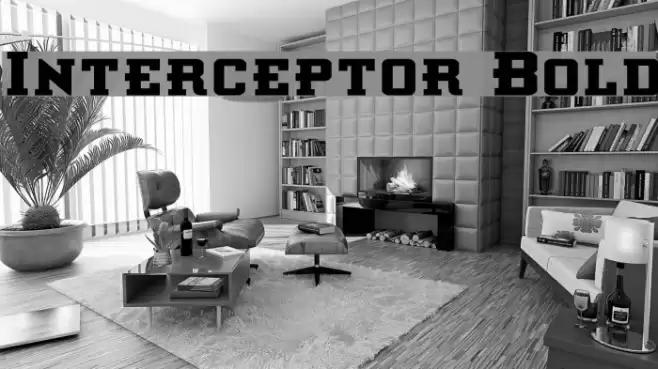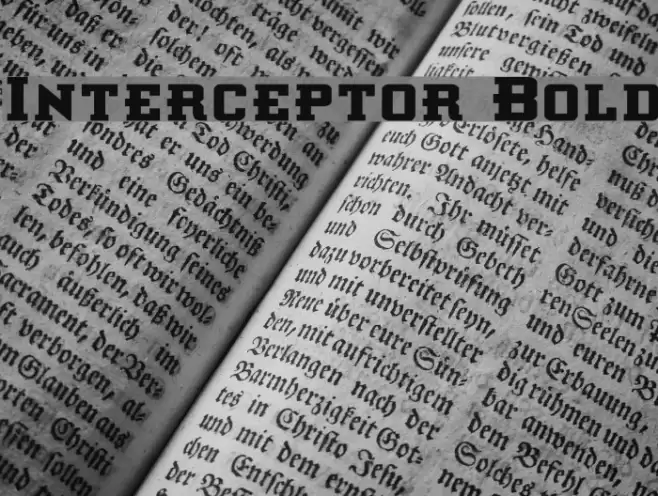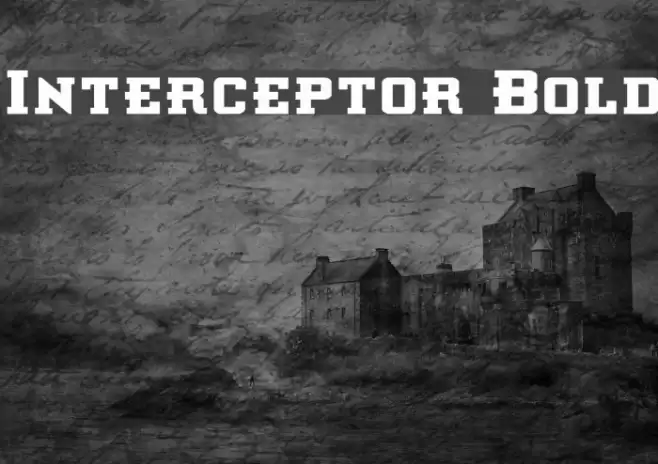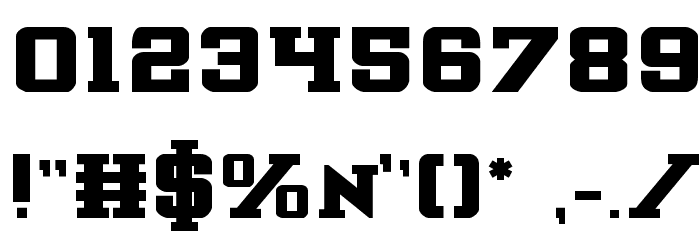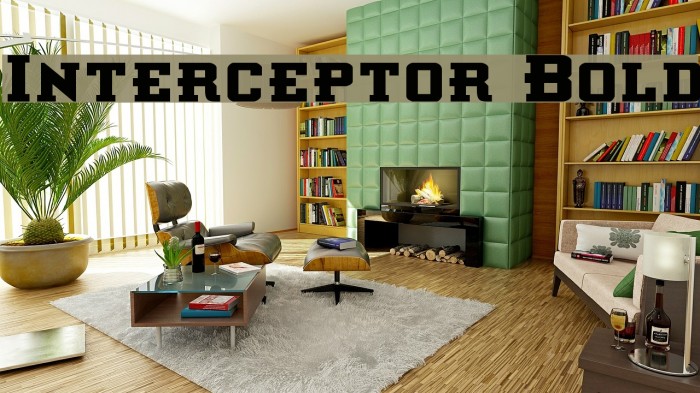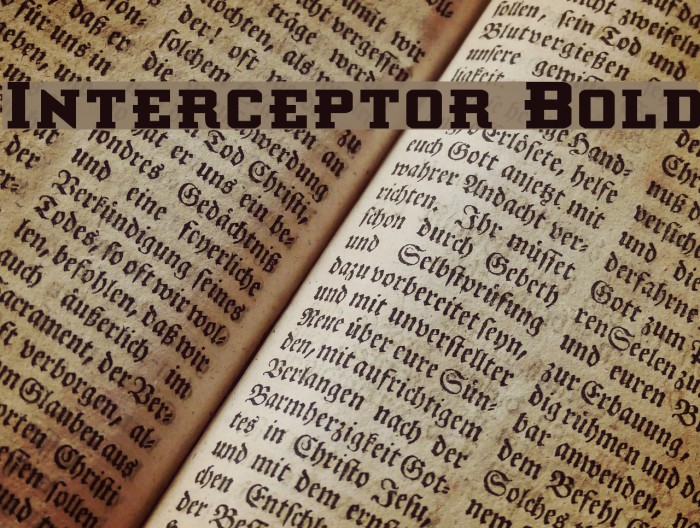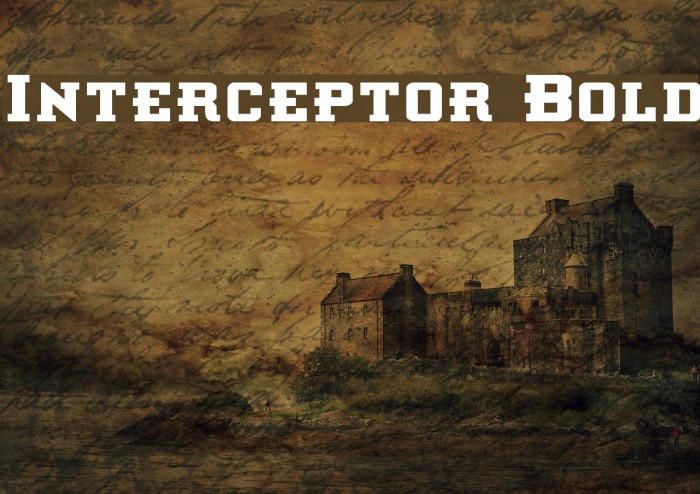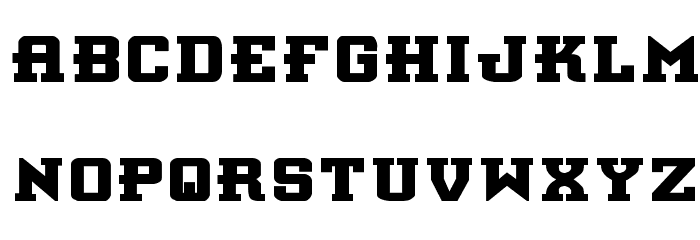
Interceptor Bold Font
Interceptor Bold Description
This font features a bold, blocky design with strong geometric shapes and a robust presence. The characters are uniformly thick, with minimal contrast between strokes, giving it a powerful and assertive look. The style is reminiscent of industrial or military typefaces, with a modern twist. The uppercase and lowercase letters maintain a consistent width, contributing to a cohesive appearance. The numerals and special characters are equally bold, ensuring readability and impact. This font is ideal for projects that require a strong visual statement.
A bold, blocky font with a strong geometric design from Uncategorized fonts.
- Proposed Projects: Ideal for posters, headlines, branding, and any design requiring a bold statement.